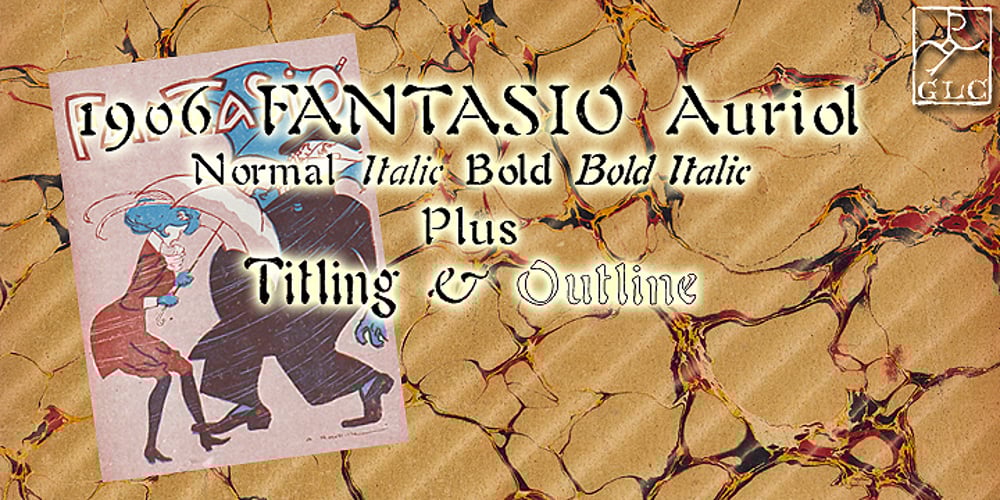
1906 Fantasio Auriol Font Family was designed by published by GLC. 1906 Fantasio Auriol contains 6 styles and family package options. We have created this family inspired from the set of well known Auriol fonts used by the French popular “cheerful” satirical magazine Fantasio (1906-1948). The present version contains Normal, Italic, Bold and Bold Italic styles, in use for texts, plus narrow titlings and normal outlined with upper and lower case, both in use for titles. This family may be used together with 1906 French News, 1906 Titrage and 1890 Notice.